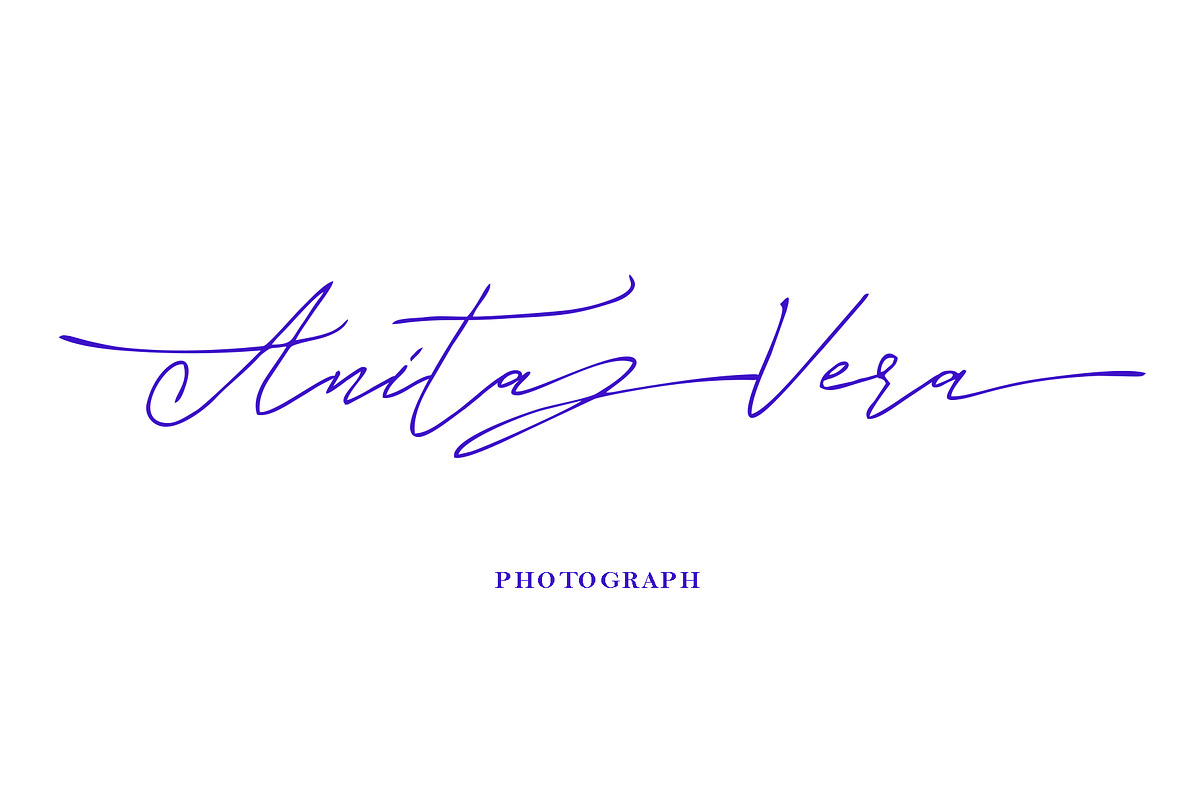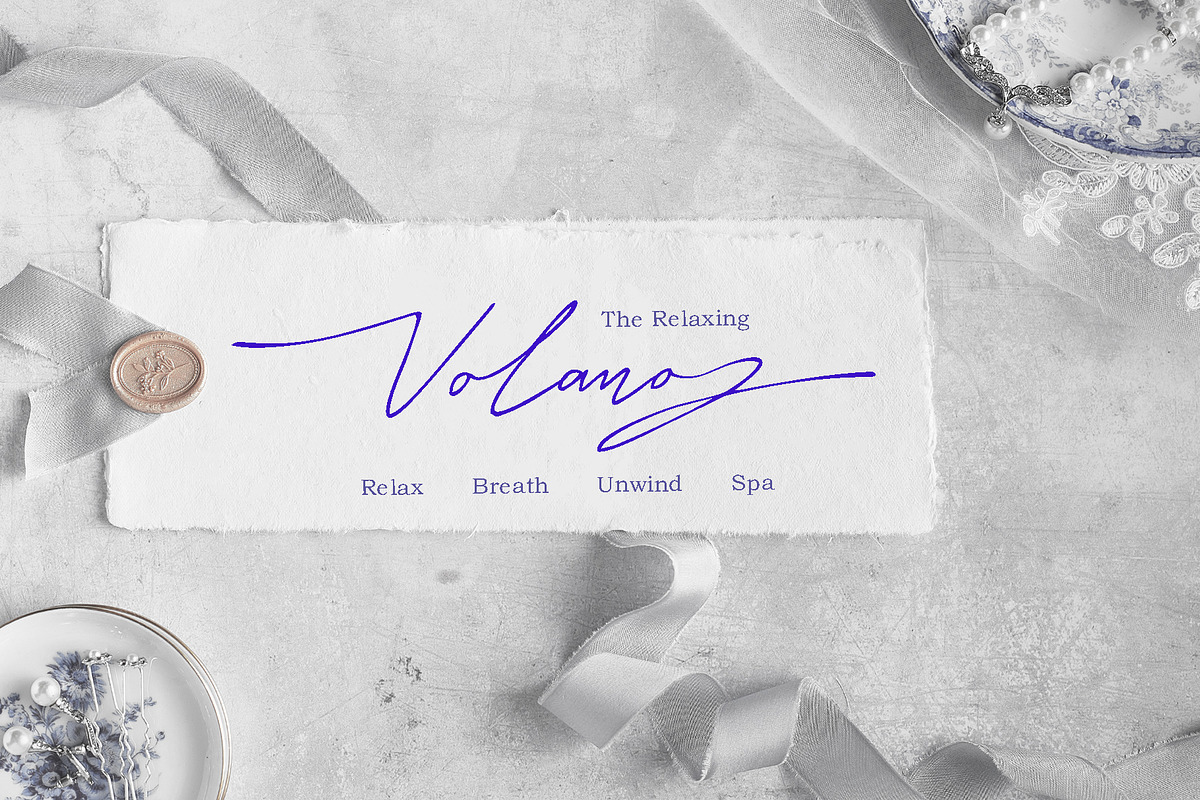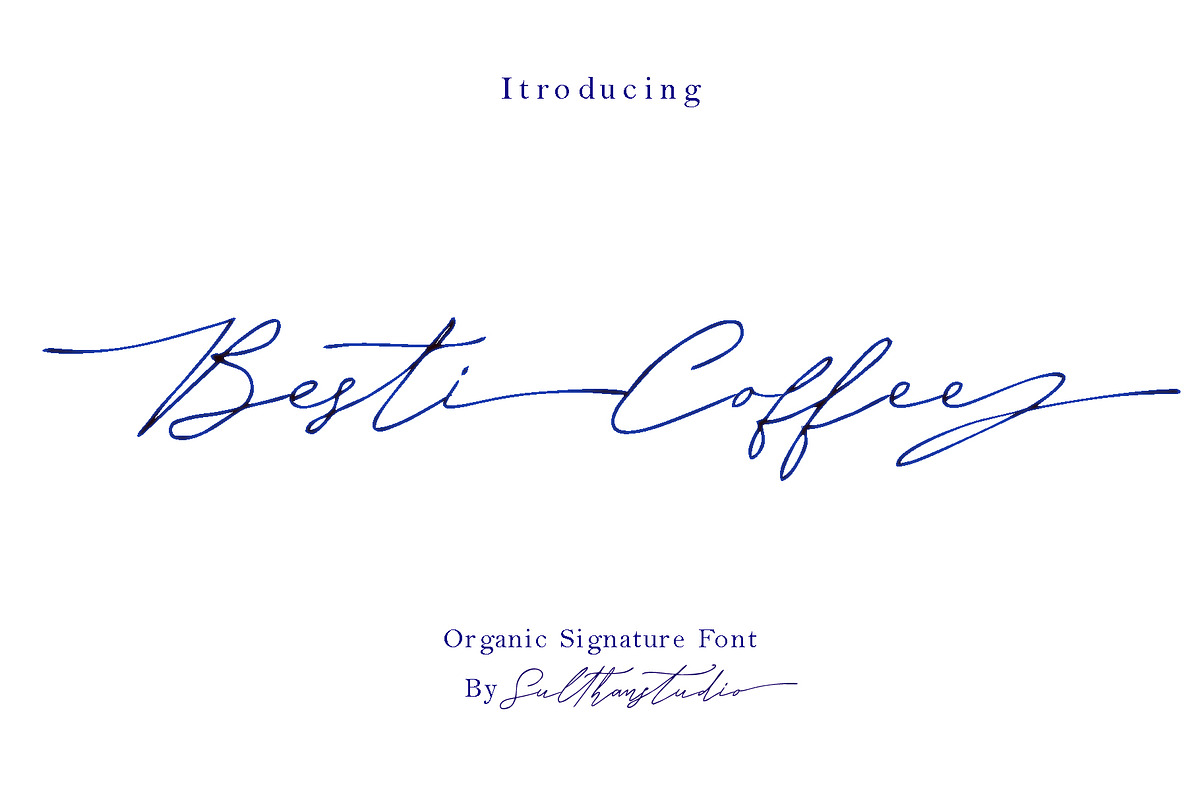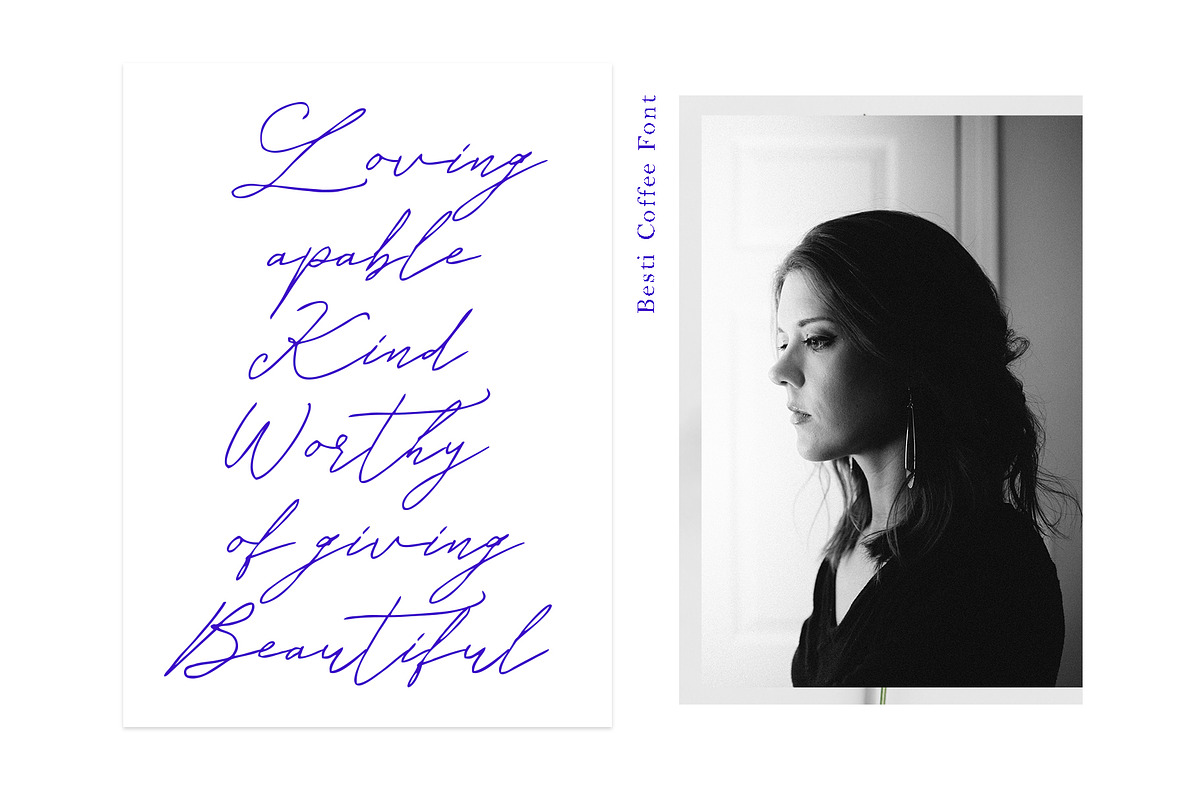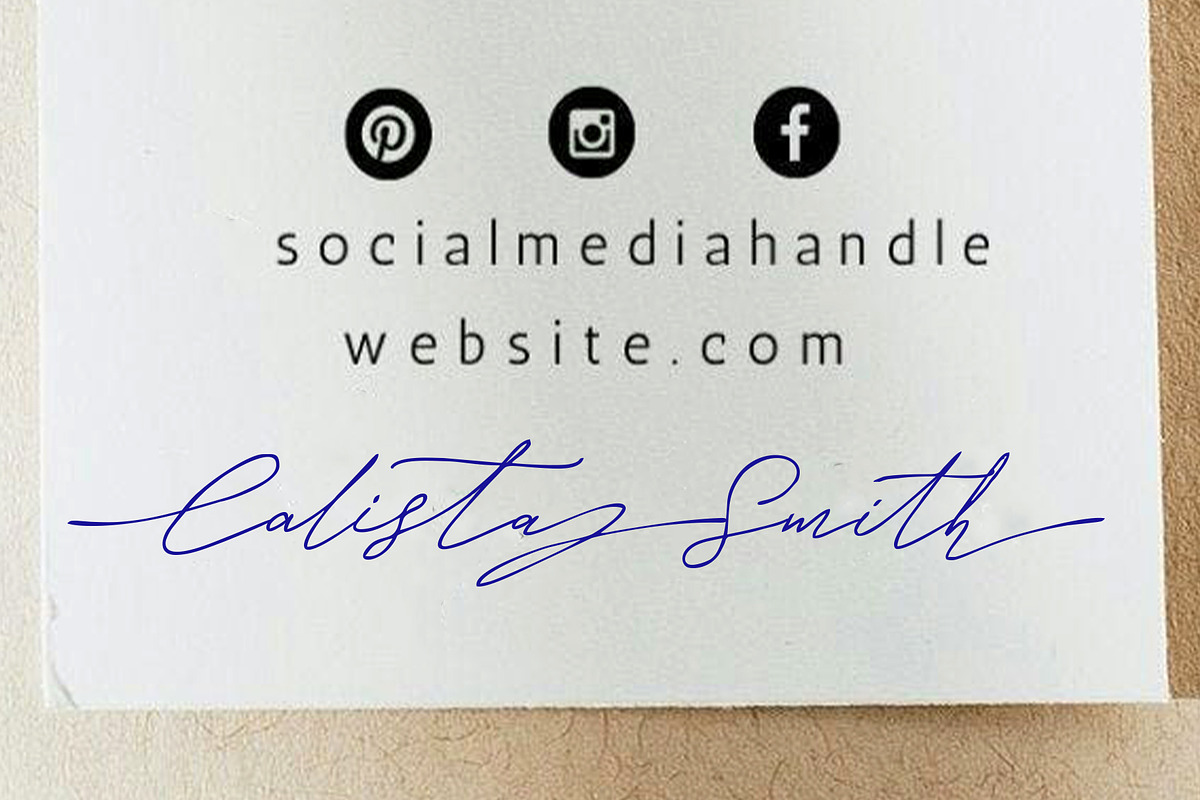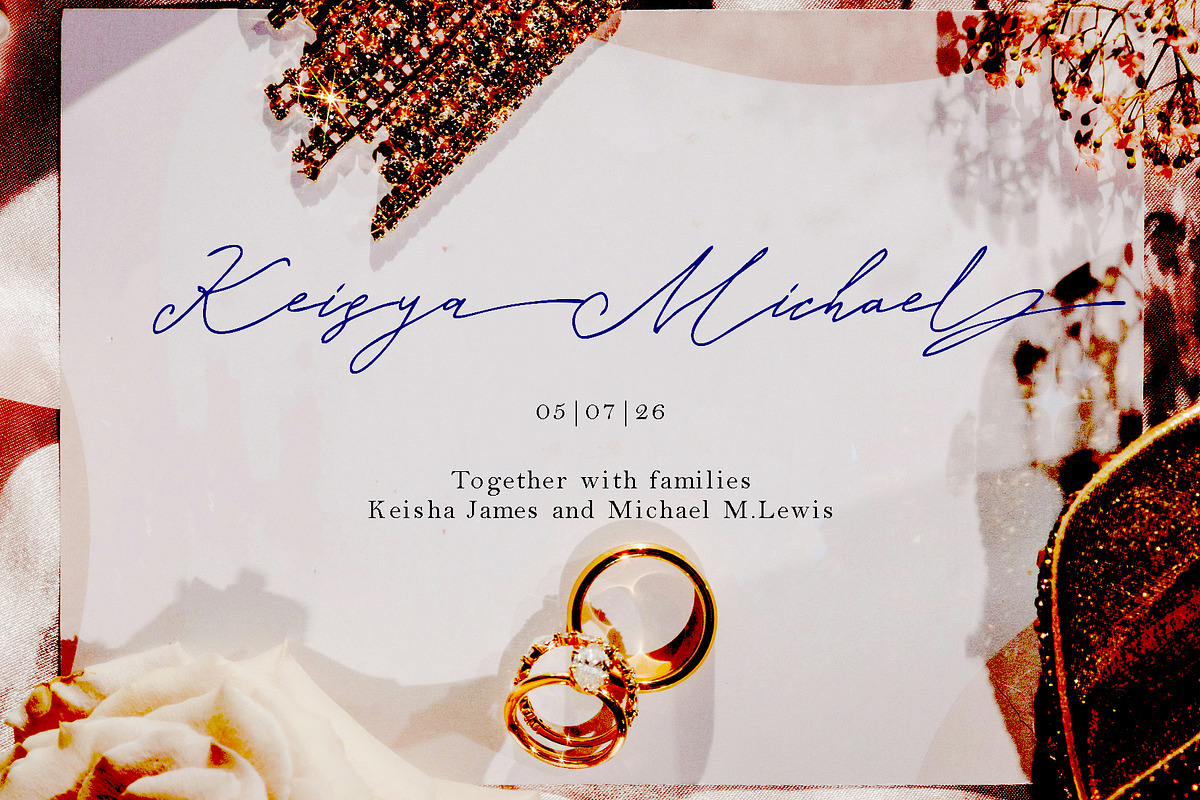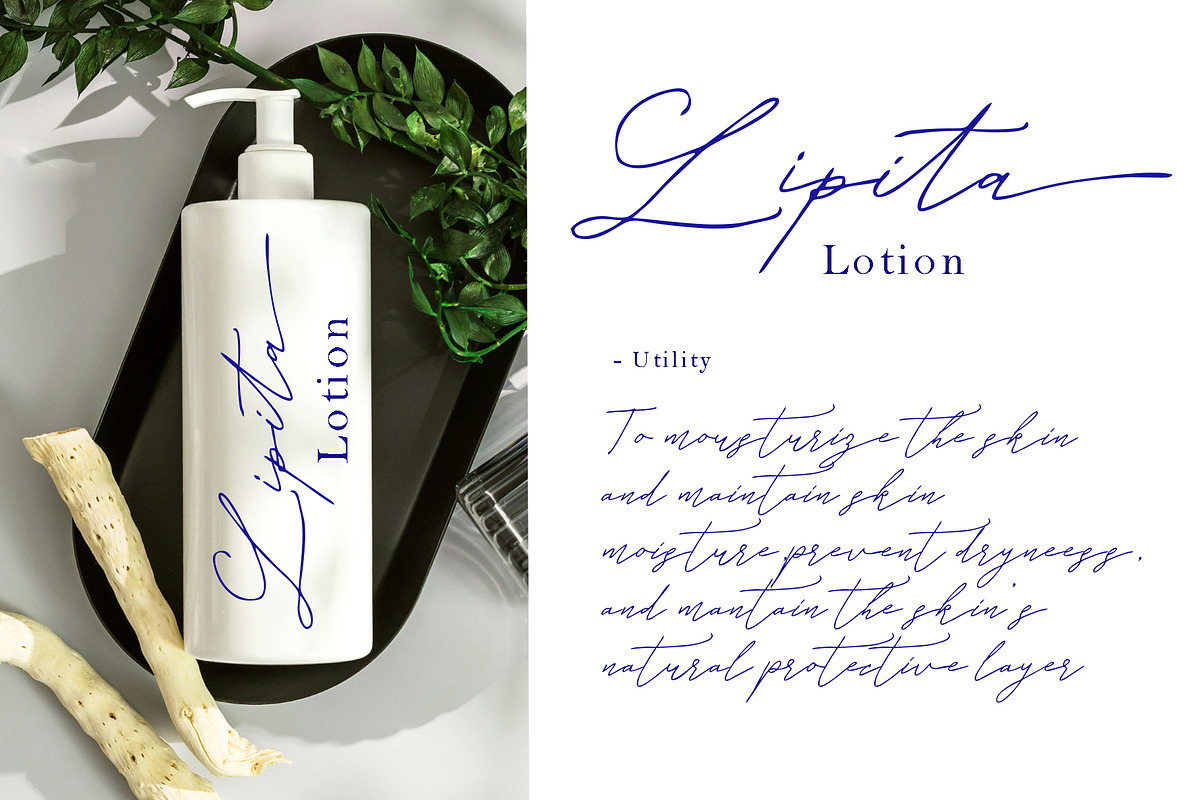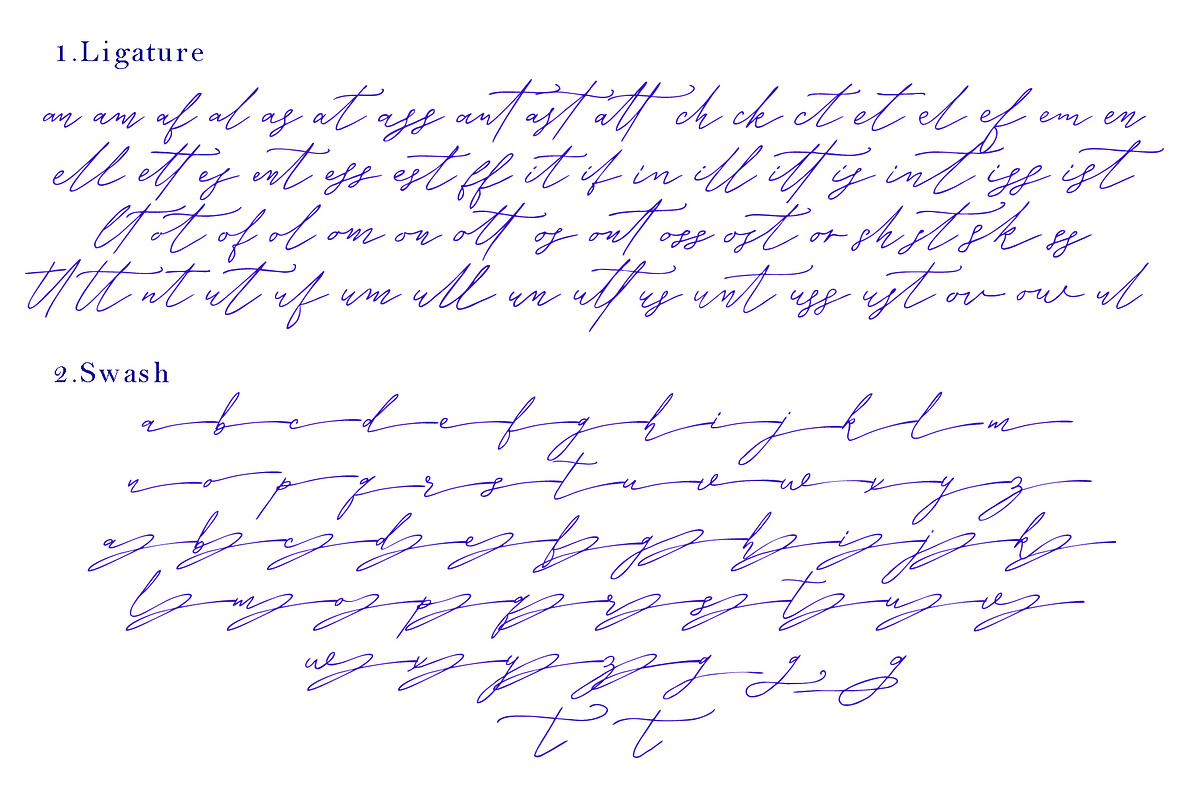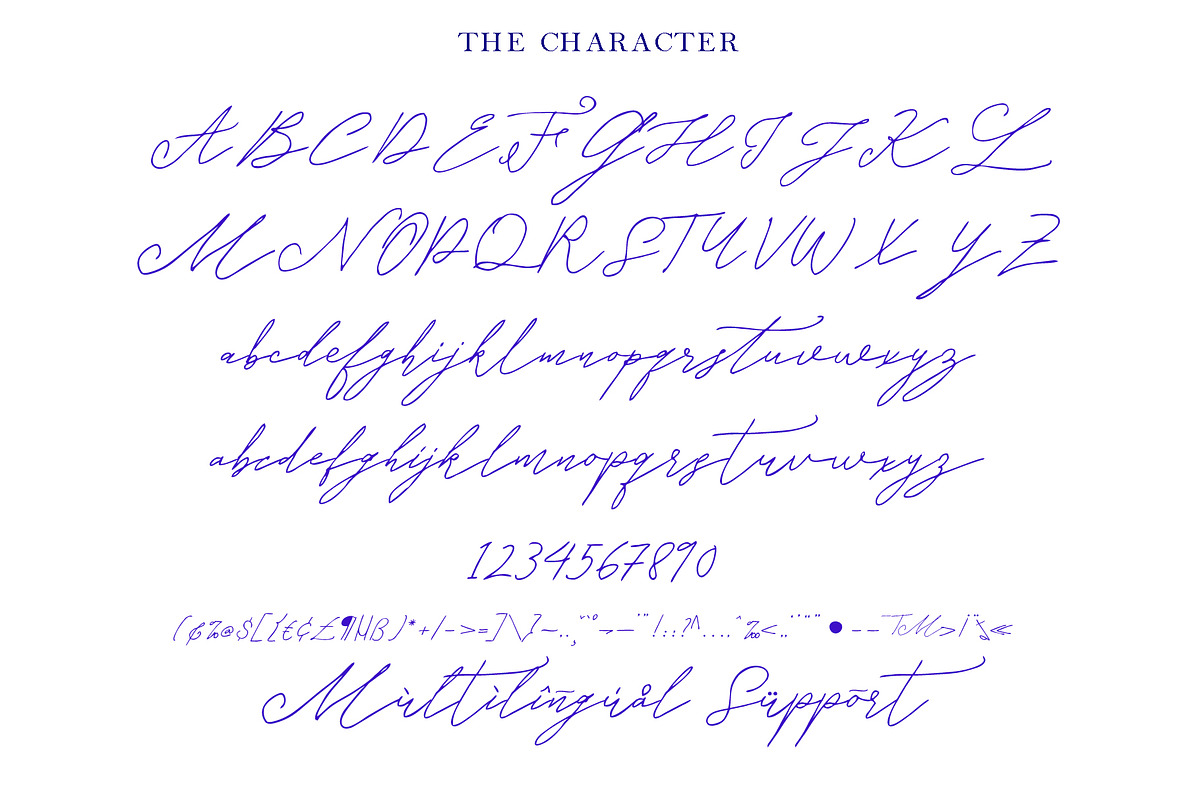
Besti coffee
Besti Coffee is a free-flowing organic signature font that combines natural and modern impressions. This font is designed to provide a personal and elegant feel, which is interconnected and complements the handwritten style. The pen strokes used in this font provide warmth and character that are very suitable for branding, design, invitations, and various other creative needs.